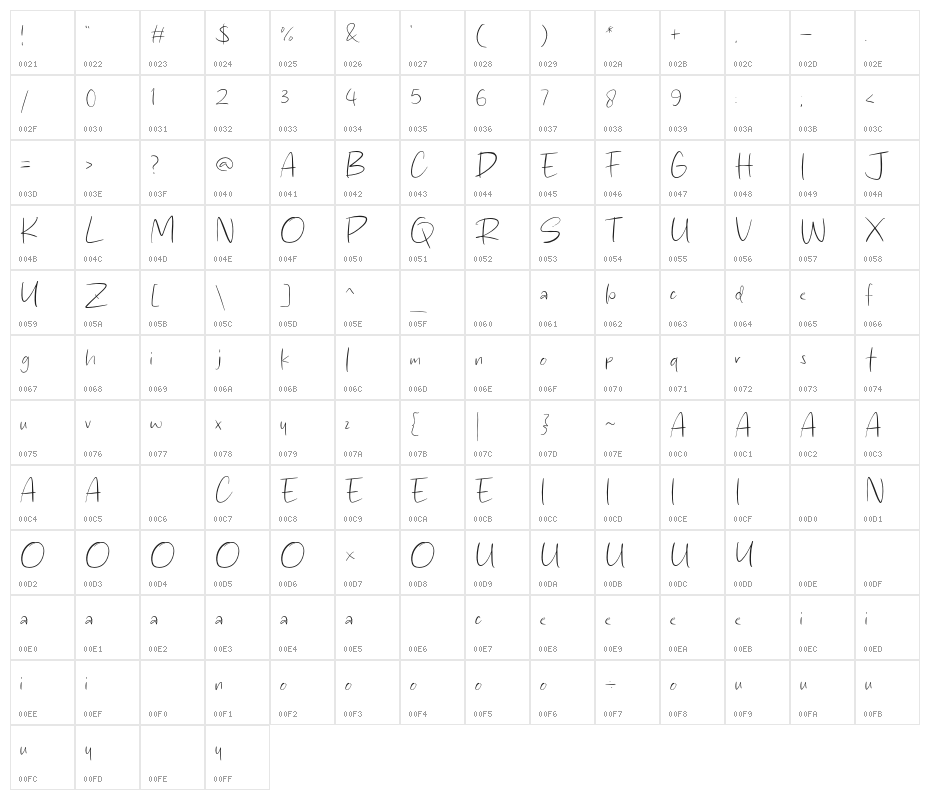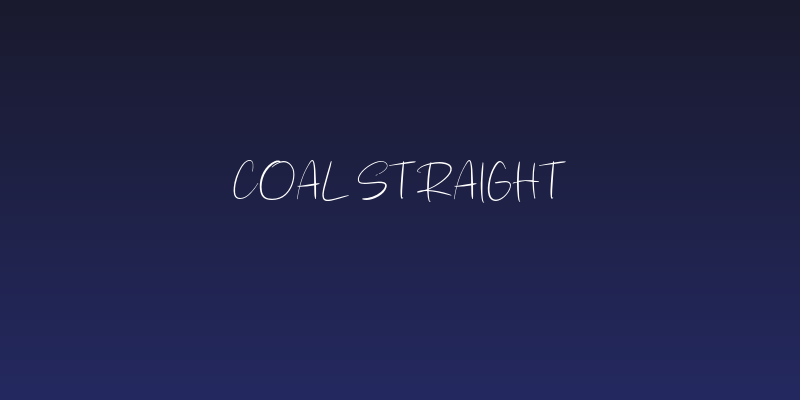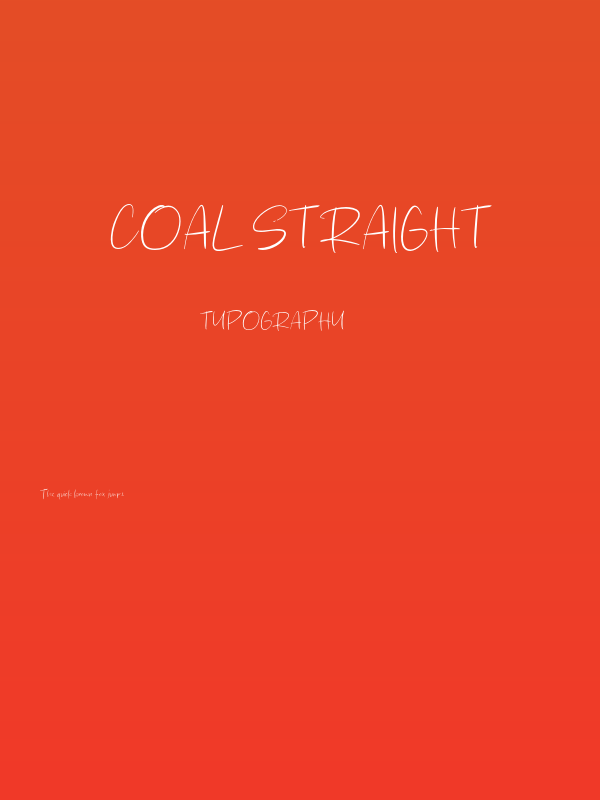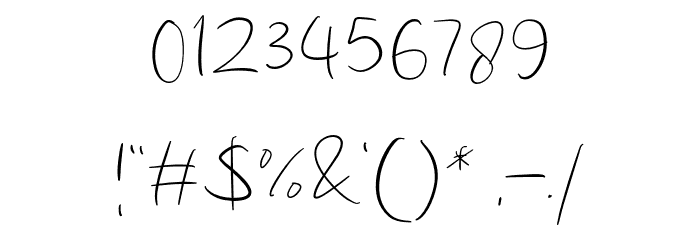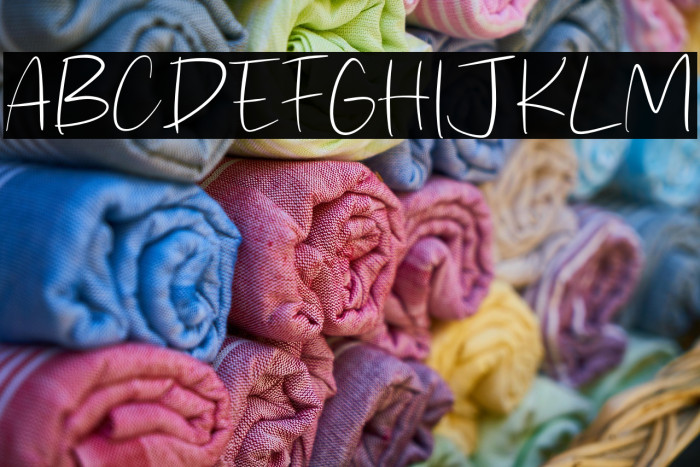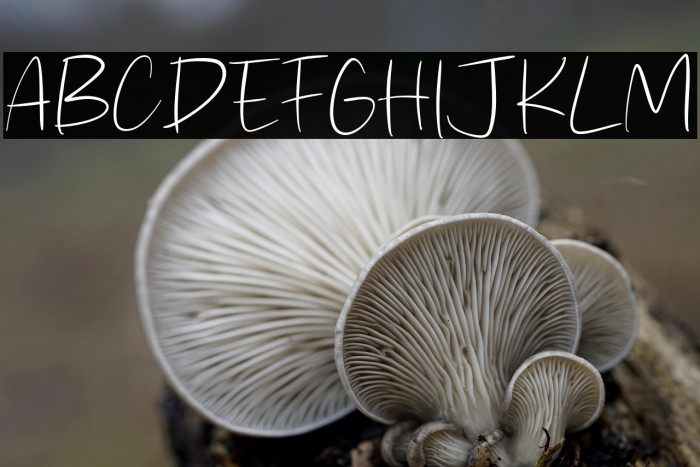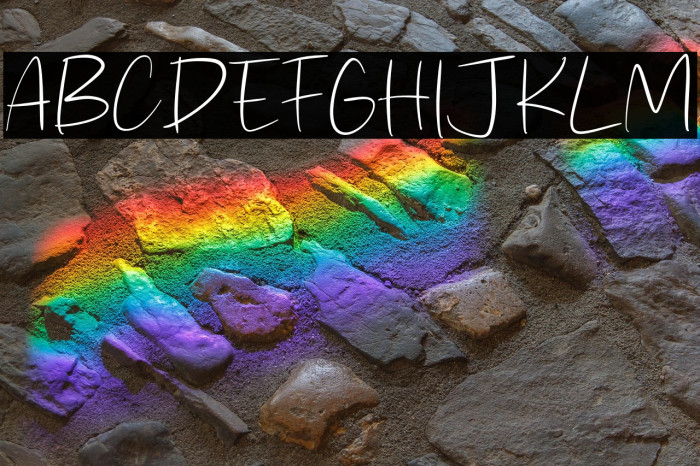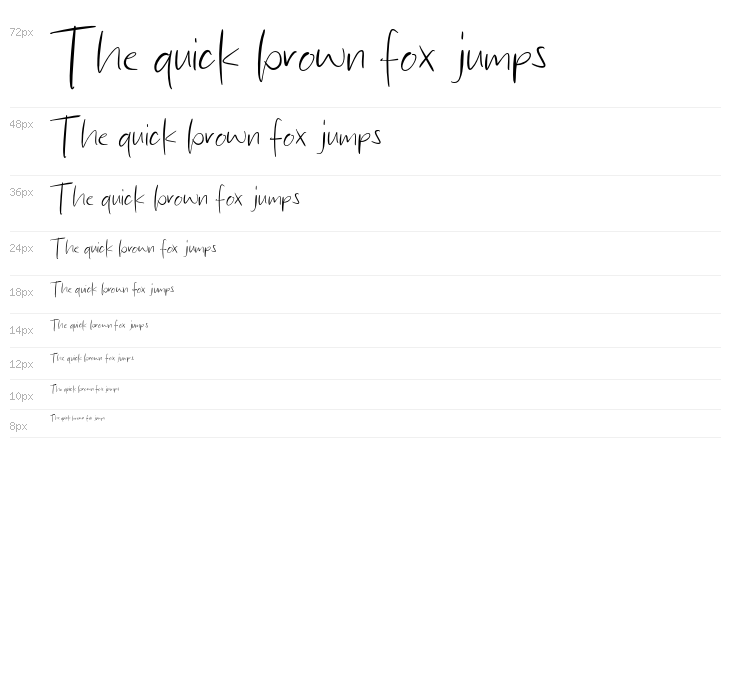
Coal Straight Font
Coal Straight Description
This font exhibits a casual, handwritten style with a playful and informal appearance. The characters are slightly irregular, adding a personal touch that mimics natural handwriting. The strokes are thin and consistent, giving it a light and airy feel. The uppercase letters are tall and slightly narrow, while the lowercase letters maintain a smooth flow with gentle curves. Numbers and special characters are designed to match the overall style, ensuring a cohesive look. This font is ideal for projects that require a personal, approachable, and friendly tone.
| Use Case | Logos, Invitations, Greeting Cards |
| Proposed Projects | Ideal for greeting cards, personal notes, informal invitations, and creative projects that require a personal touch. |